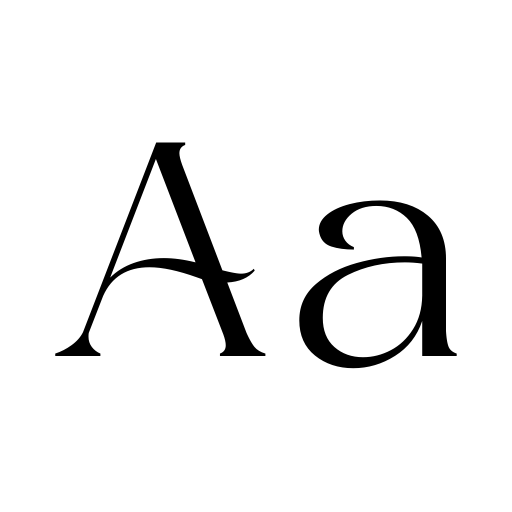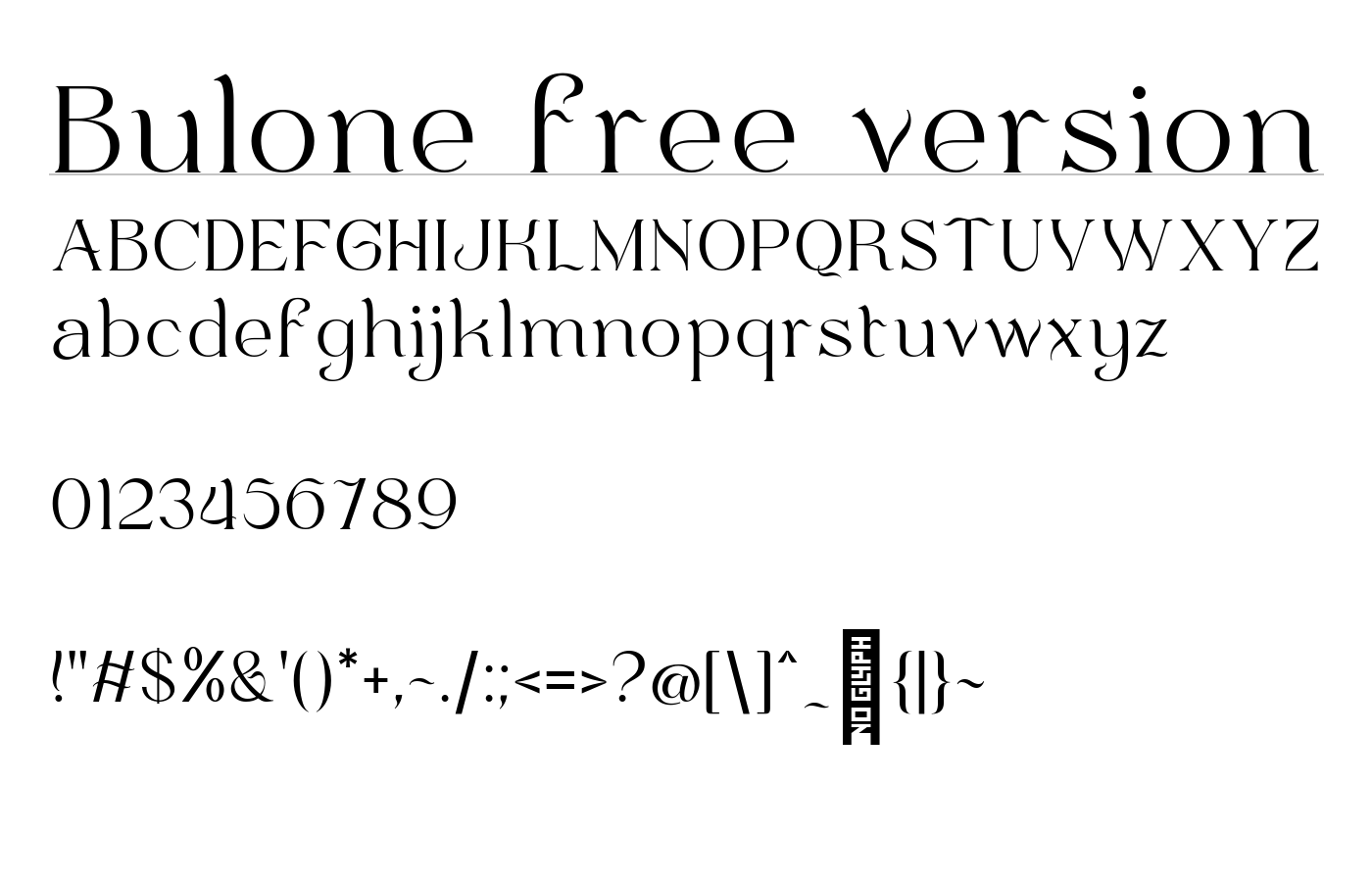
Bulone Free Version is a delicate serif font with a graceful, slightly whimsical style, featuring thin strokes and distinctive curved terminals that give it a sophisticated yet approachable personality. Its elegant and refined appearance makes it ideal for artistic logos, editorial headlines, and luxury branding where a touch of creativity and uniqueness is desired. This font works best in display contexts, adding charm and character to fashion, book covers, and stylish packaging.
Bulone free version Font
About Bulone free version Font
| Font family | Bulone free version Font |
| Designer | Alit Suarnegara |